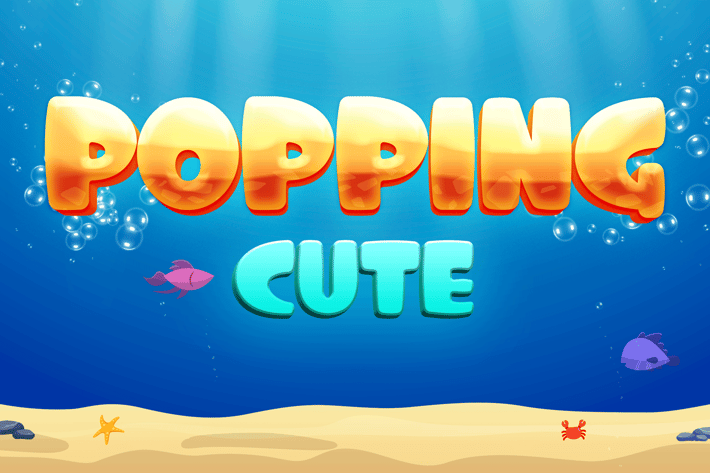
Popping Cute - Cartoon Comic Font
Big, bold, and cute is what it's all about. The rounded chubby shape will bring a lot of smiles to the audiences.
Suit perfect for pop cartoon books market, online games, event posters, school supplies font, posters, movie titles, youtube covers, youtube thumbnails, social media page covers, and so on...